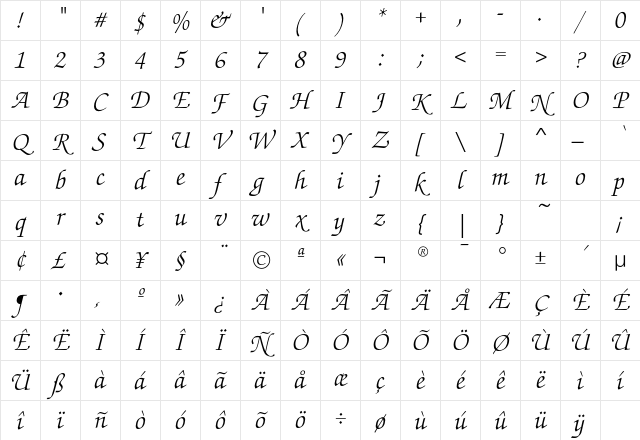
ZapfChanceryEF LightIta
Style: LightIta
Design Context for ZapfChanceryEF
ZapfChanceryEF is a composed and adaptable typeface that performs quietly and consistently across a wide range of design contexts. Its slender proportions lend an understated elegance to any composition.
Pro Tip: Use ZapfChanceryEF in both headline and body roles to test its range before committing to a single application.